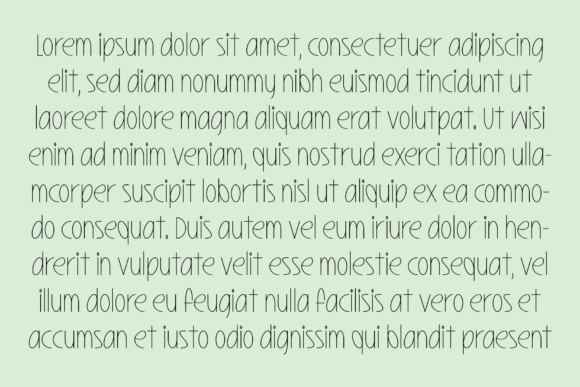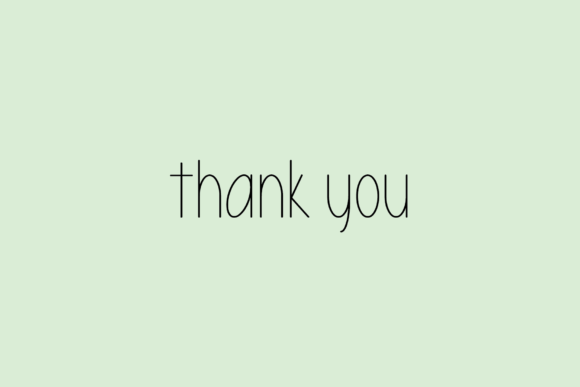
Remember the excitement of getting your first design brief, and the rush of creativity that comes with it? For many designers, it’s the moment when ideas start flowing, and the possibilities seem endless. But what happens when you need to give your design that extra something – that spark that sets it apart from the rest?
Enter the Delight Font, a simple and friendly handwritten typeface that’s sure to bring a smile to your face. Designed to add a touch of whimsy to your designs, this font is perfect for logos, wedding invitations, quotes, and advertisements. With its quirky charm, the Delight Font is a valuable addition to any designer’s toolkit, guaranteed to brighten up even the most mundane projects.
Delight Font Key Features
- Font Size: The font comes in 6 weights ranging from Light to Extra Bold, offering versatility in design applications.
- Unique Characteristics: Delight Font features a unique blend of modern and elegant design elements, making it suitable for a wide range of applications, from branding to publishing.
- Language Support: Delight Font supports a vast range of languages, including Latin, Cyrillic, and Greek alphabets, making it an excellent choice for multilingual designs.
- Kerning and Ligatures: The font includes advanced kerning and ligature features, ensuring smooth text rendering and a professional appearance in digital and print media.
Delight Font Review
I recently had the chance to work with the Delight Font, and I must say it’s a mixed bag. Here’s my honest take.
- Cute and playful feel: Delight Font has a whimsical vibe that’s perfect for designs that need a touch of fun and personality.
- Wide range of languages supported: Whether you’re working on a project for a global audience or need to cater to specific languages, Delight Font has got you covered.
- High-quality rendering: The font looks crisp and clear, even at smaller sizes, which is a must-have for any serious design project.
- Limited flexibility: While Delight Font is great for certain designs, it might not be the best choice for more formal or professional projects.
- No bold or italic variations: If you need to emphasize certain text or create a stronger visual impact, you might find yourself struggling with Delight Font’s limitations.
Overall, Delight Font is a solid choice for designers looking for a playful, easy-to-read font. While it may not be perfect for every project, it’s definitely worth considering for the right kind of design. Just be aware of its limitations and plan accordingly.
Delight Font is ideal for creating playful, whimsical designs. Use it for:
– Children’s books and educational materials
– Social media graphics and advertisements
– Wedding invitations and party decorations
– Any project that requires a touch of whimsy and fun
Remember to pair Delight Font with other playful fonts and graphics to create a cohesive and eye-catching design.
Alternatives to Delight Font
Playfair Display is an elegant, high-end serif font ideal for luxury brands, fashion, and high-end advertising. It features intricate details and ornate flourishes, making it perfect for creating a sophisticated and luxurious atmosphere. Unlike Delight Font, which has a more playful feel, Playfair Display is more formal and refined.
Alex Brush is a beautiful, hand-painted script font that works well for invitations, watermarks, and other creative projects. It has a more organic feel than Delight Font and is better suited for projects that require a personal, handwritten touch. While Delight Font is more geometric and modern, Alex Brush is more fluid and expressive.
Crimson Text is a modern serif font that is highly legible and suitable for body text, articles, and other long-form content. It has a more understated feel than Delight Font and is better suited for projects that require a clean and professional look. While Delight Font is more playful and decorative, Crimson Text is more functional and easy to read.